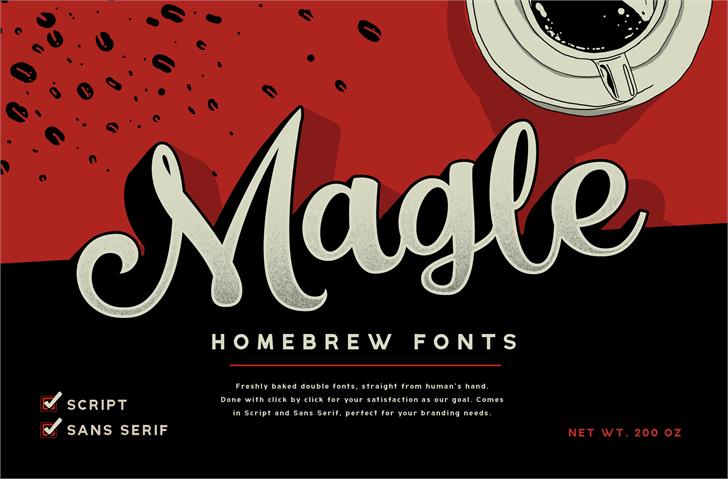
Free Magle Script Font
Take a look at this gorgeous free magle script font. This font file was found from the amazing source called Font Space. Easily amaze your audience with this beautiful font and make your graphic designs pop up from the crowd.